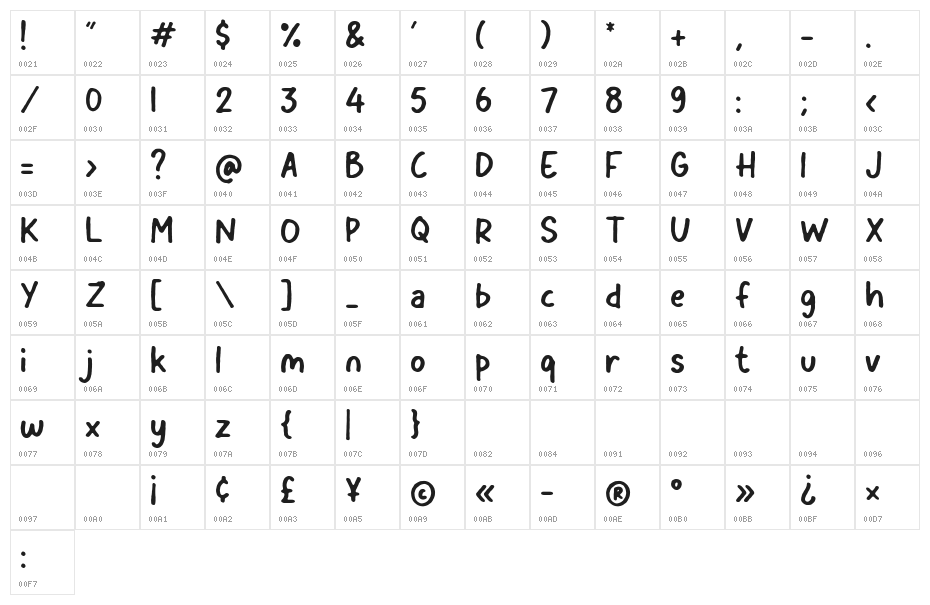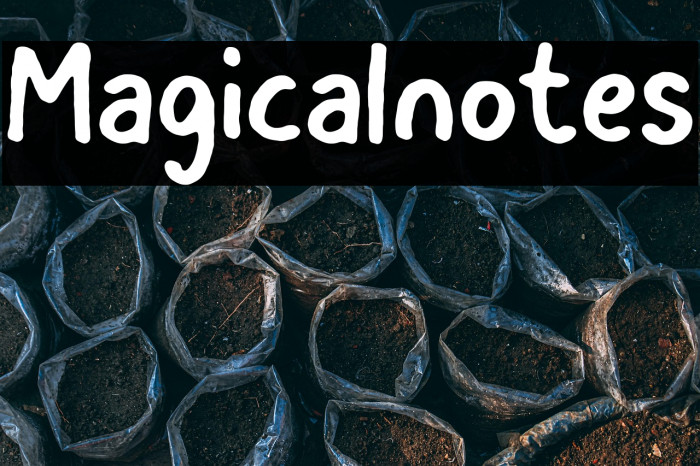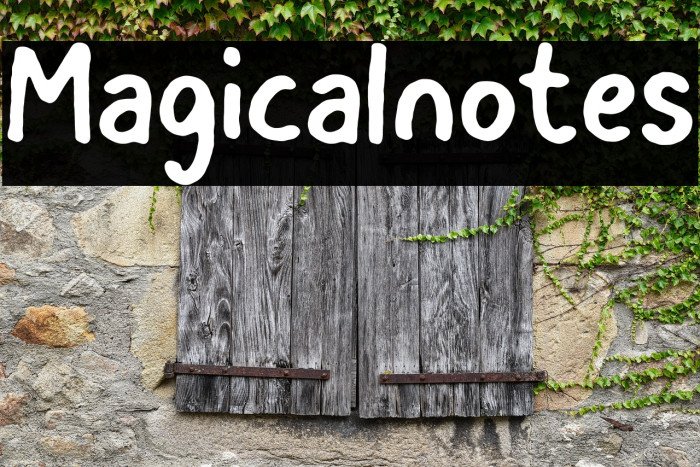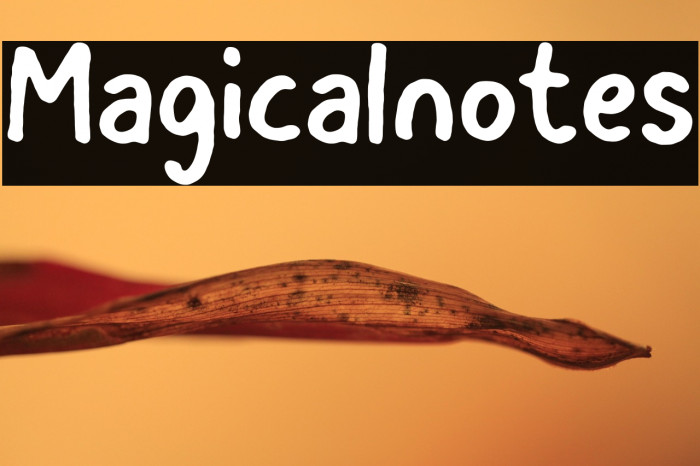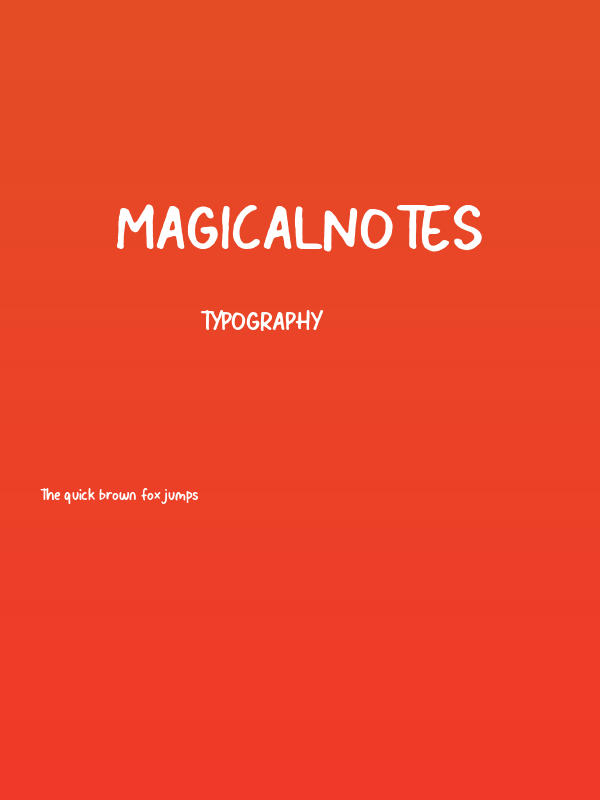
Magicalnotes Font
Magicalnotes Description
This playful and whimsical font features a handwritten style that exudes a sense of fun and creativity. The characters are bold and rounded, with a slightly irregular baseline that adds to its charm. The uppercase and lowercase letters maintain a consistent style, while the numbers and special characters are equally expressive. This font is perfect for projects that require a personal touch, such as greeting cards, children's books, or playful branding. Its unique style makes it stand out, while still being highly readable.
| Overall Style | Playful, Whimsical |
| Use Case | Headlines, Logos, Creative projects |
| Proposed Projects | Ideal for greeting cards, children's books, playful branding, and creative projects. |